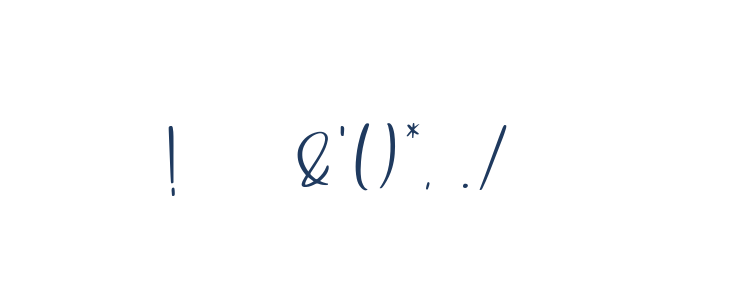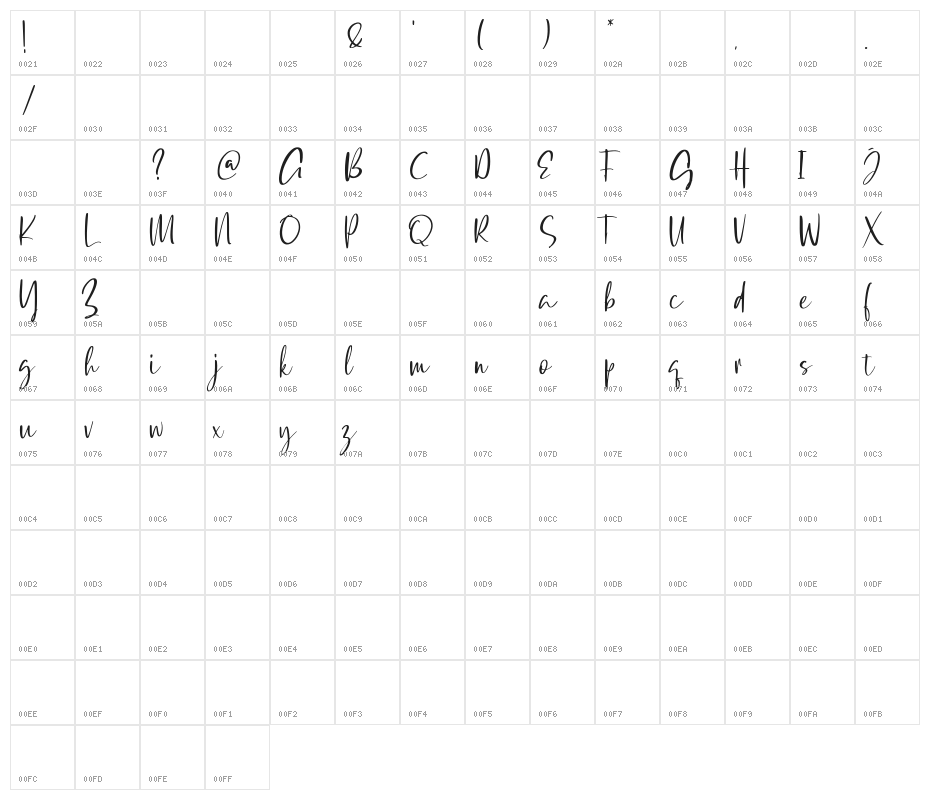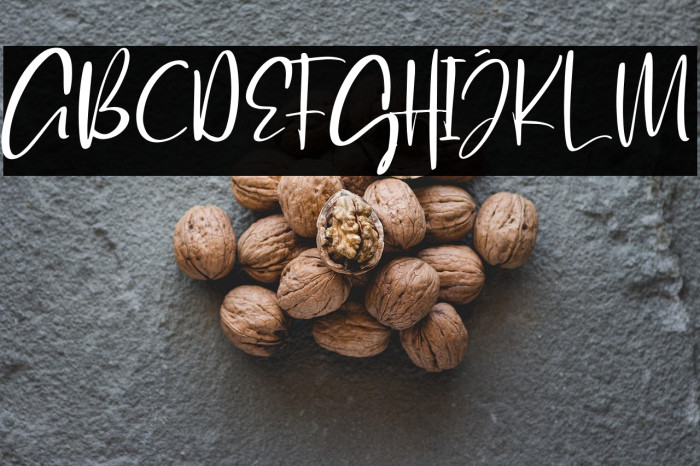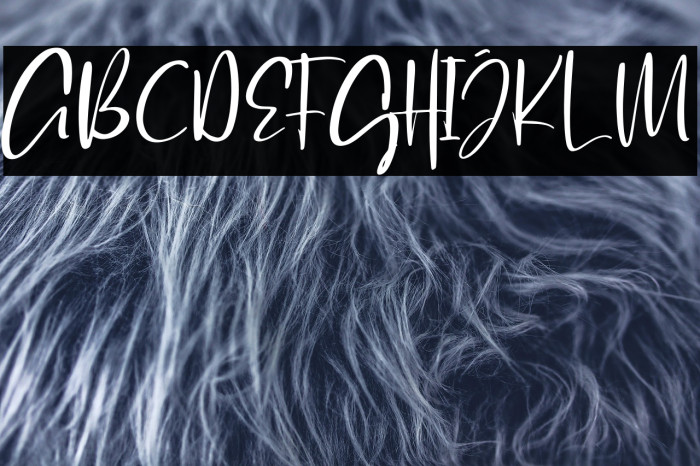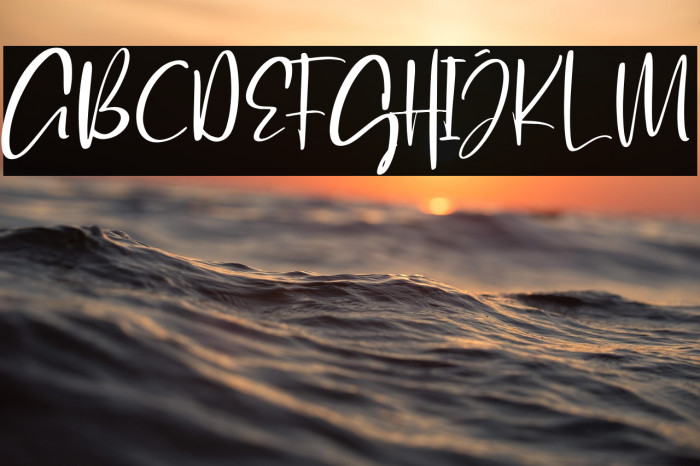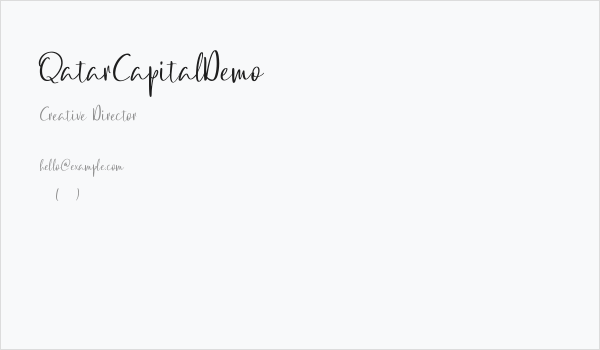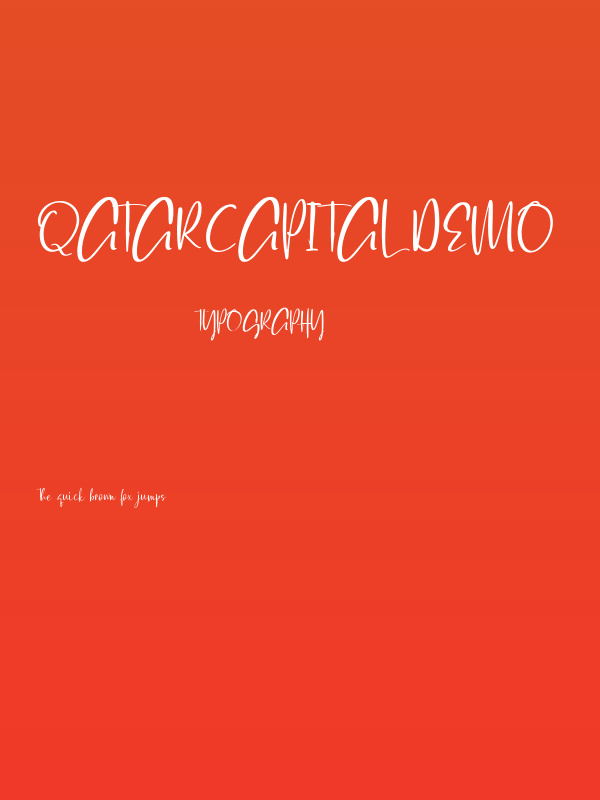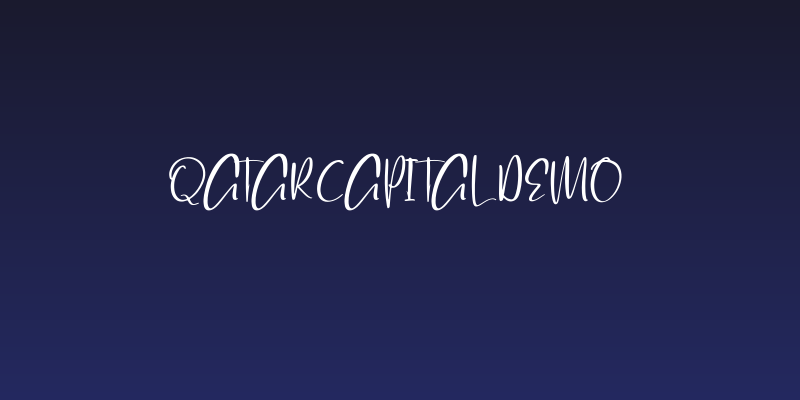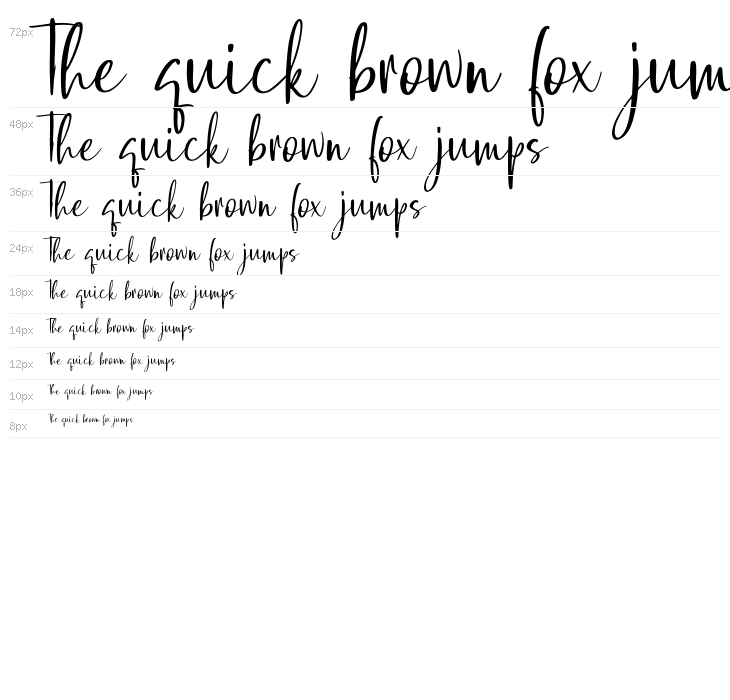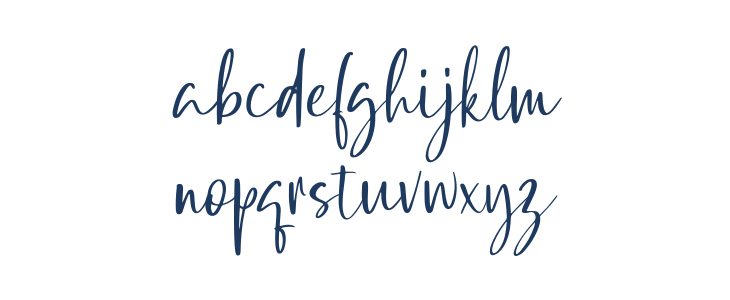
QatarCapitalDemo Font
QatarCapitalDemo Description
This font features a dynamic and fluid script style, characterized by its elegant, flowing lines and a handwritten appearance. The uppercase letters are bold and expressive, with varying stroke widths that add a sense of movement and energy. The lowercase letters maintain a consistent style, with smooth curves and a slightly slanted orientation, enhancing the font's overall graceful aesthetic. The numerals and special characters are designed to complement the letters, maintaining the same fluidity and artistic flair. This font is ideal for projects that require a personal touch, such as invitations, greeting cards, or branding materials that aim to convey sophistication and creativity.
Use CaseLogos, Headlines, Invitations
Proposed ProjectsIdeal for invitations, greeting cards, branding, and creative projects.